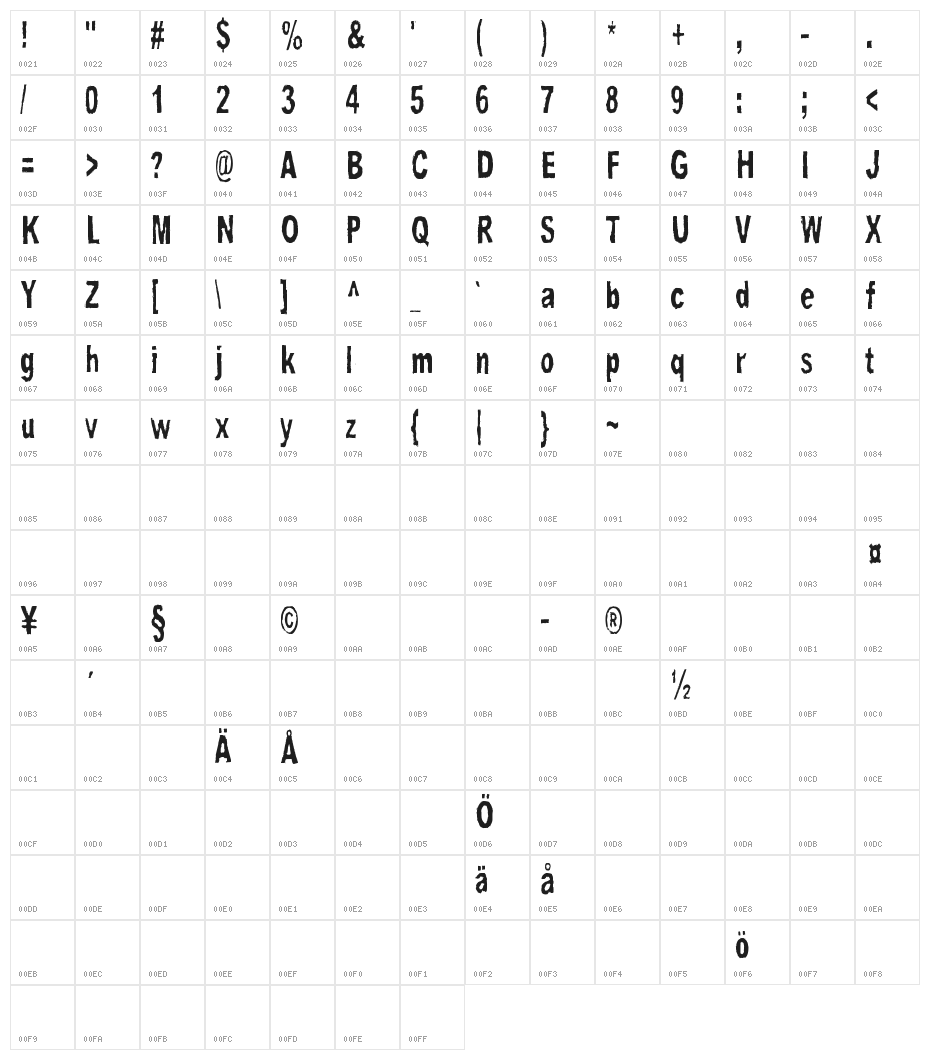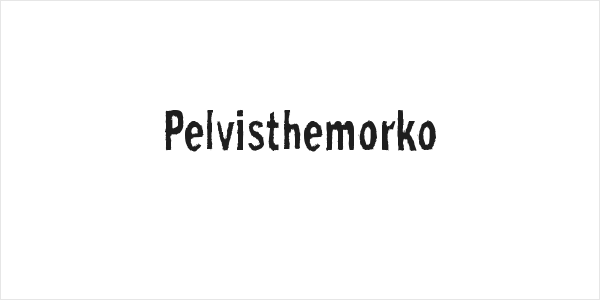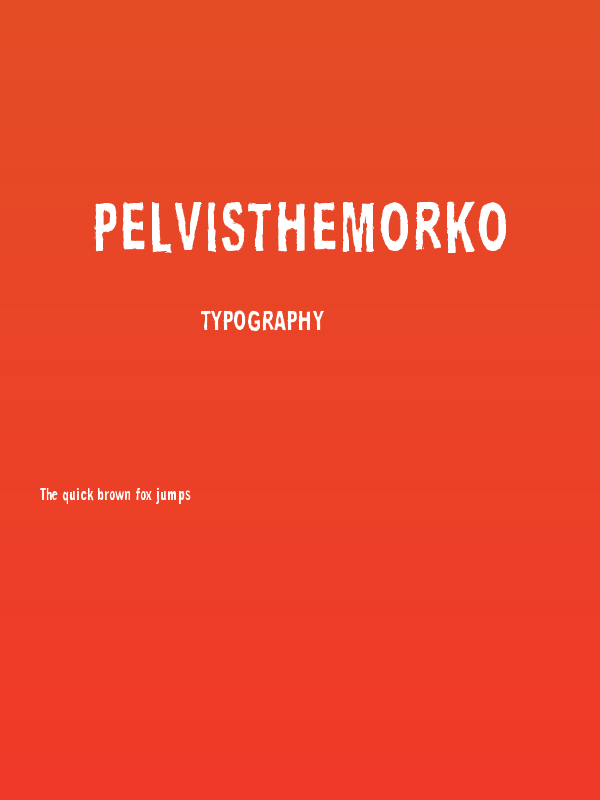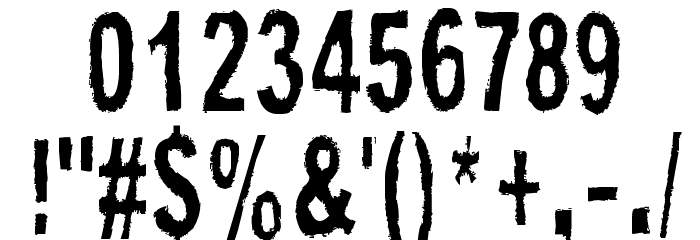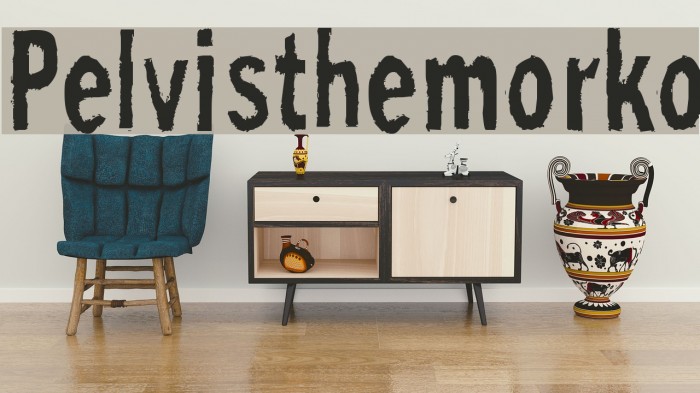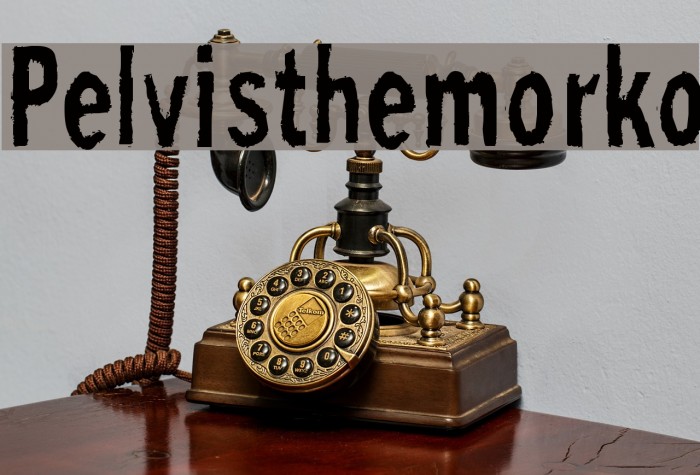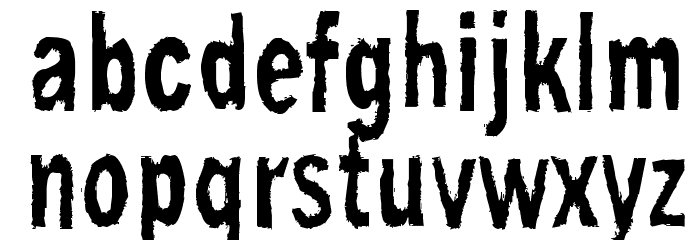
Pelvisthemorko Font
This font features a bold and rugged style with a hand-drawn appearance. The characters have a distressed texture, giving them a vintage and organic feel. The uppercase and lowercase letters are consistent in their rough edges, creating a cohesive look. Numbers and special characters maintain the same textured style, making them suitable for creative and artistic projects. The font's unique appearance makes it stand out, ideal for designs that require a touch of authenticity and character.
| Proposed Projects | Ideal for posters, album covers, branding, and any project needing a rustic or artistic touch. |